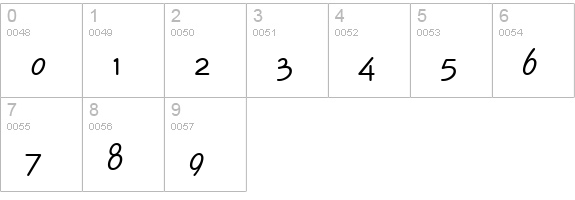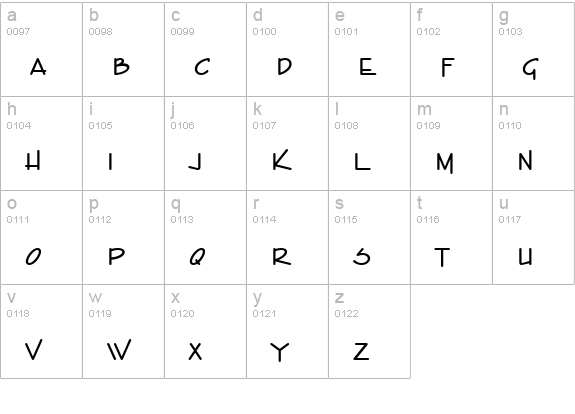
EnviroSCDEE Font Details
EnviroSCDEE font is a beautifully crafted typeface that perfectly captures the essence of nature and sustainability. With its organic shapes and earthy tones, this font exudes a sense of environmental consciousness and eco-friendliness. The intricate details of each letter evoke a sense of harmony with the environment, making it the ideal choice for projects related to ecology, conservation, and green living. What makes EnviroSCDEE font even more appealing is that it is completely free to download at FontsMarket.com. This means you can easily incorporate this stunning font into your designs without any cost involved. Whether you're working on a poster for a nature event, a brochure for a conservation organization, or a website promoting sustainable living, EnviroSCDEE font will add a touch of natural beauty and eco-awareness to your project. Download it today and let your creativity bloom with this free and inspiring font.